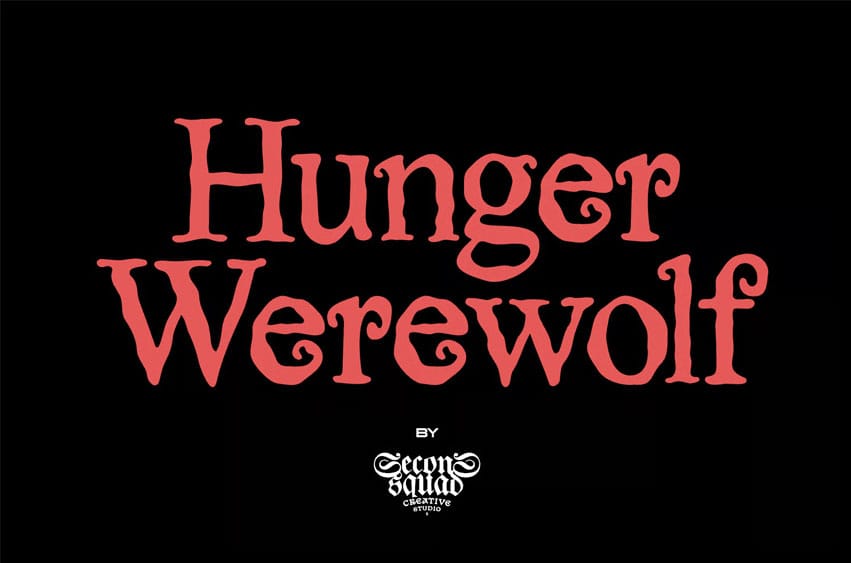
Hunger Warewolf Font is a ferocious Halloween font that prowls with creepy energy and gothic horror style. Its wild, claw-marked strokes are perfect for scary movie posters, horror book covers, thriller titles, and witchy branding that crave a touch of evil. Every letter drips with spooky atmosphere, weaving tales of mystery, death, and terrifying monsters lurking in the shadows.
From haunted Halloween invites to gothic death notes, Hunger Warewolf delivers a fearsome bite to any design. Whether you’re summoning witches, crafting a deathly thriller poster, or unleashing a monster-filled horror logo, this font transforms your project into a chilling visual feast. Dare to feed the beast with Hunger Warewolf.